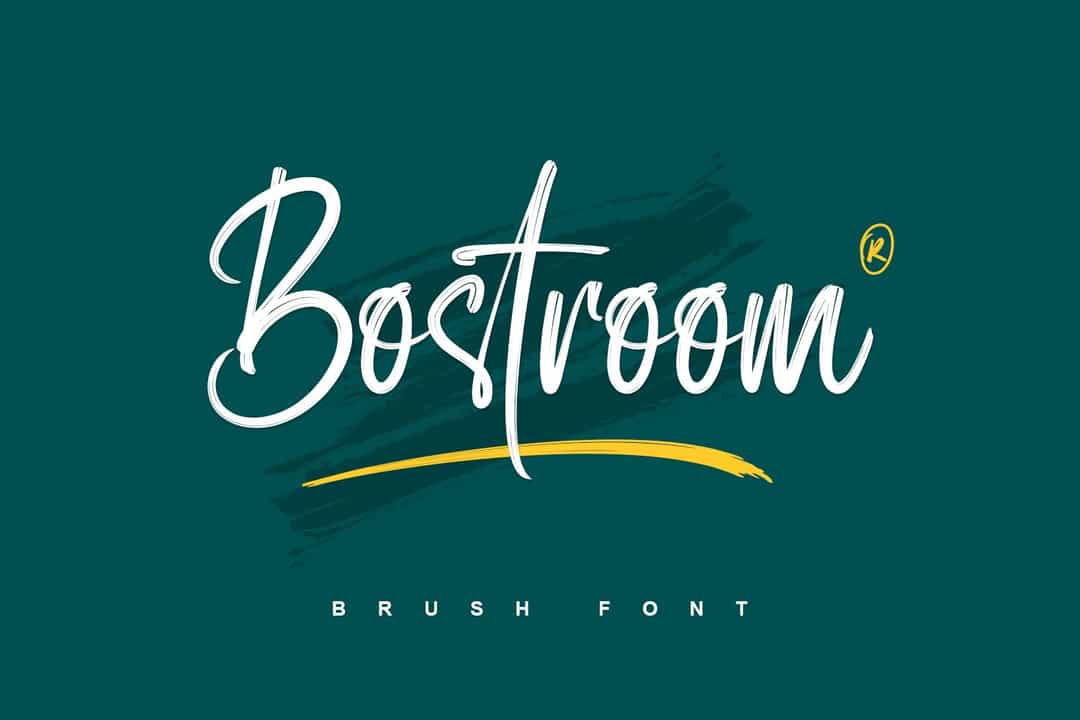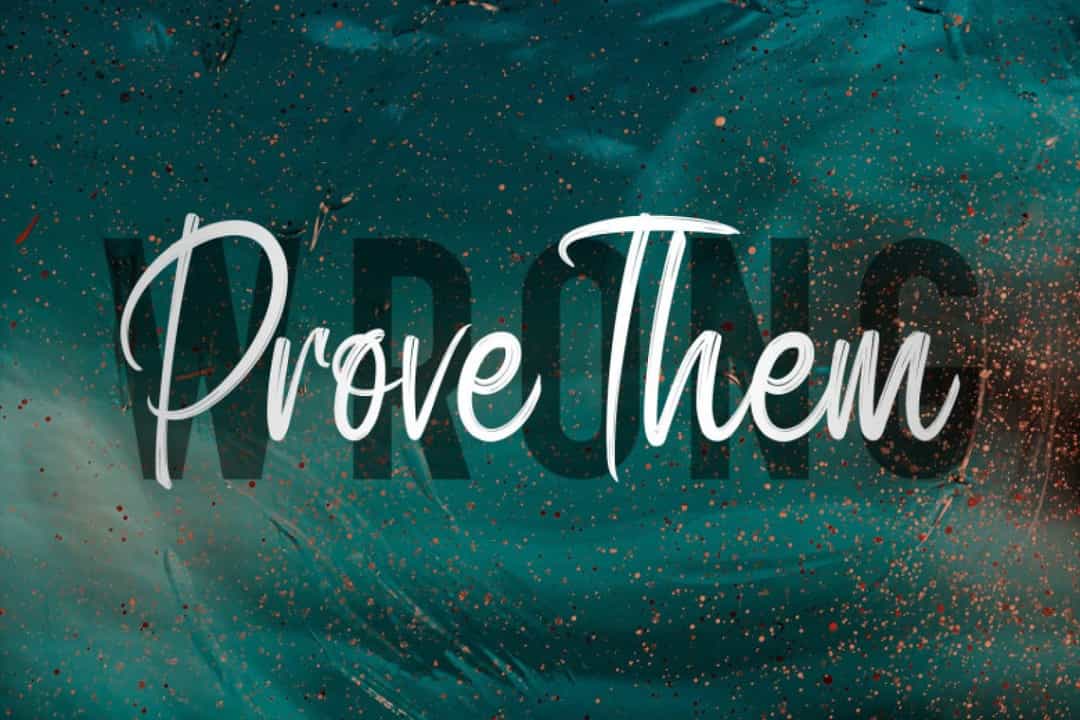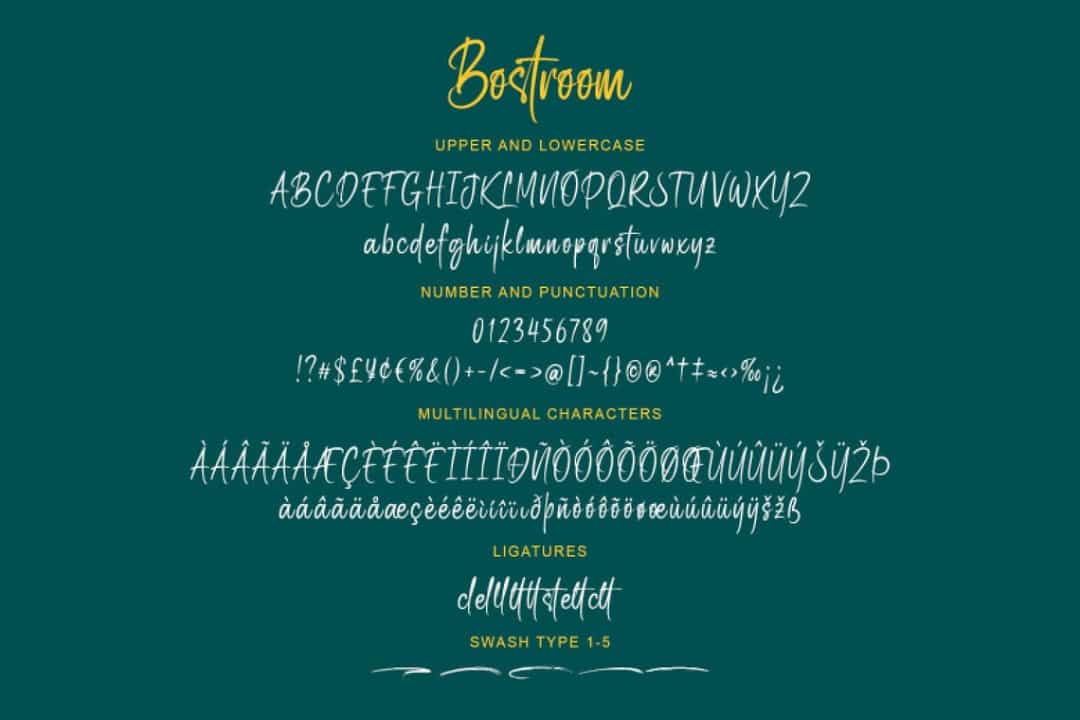
Discover Bostroom Font, part of the Brush collection—a versatile and unique font perfect for adding a personal touch to your projects. Download it for free and enjoy crafting designs with style, from invitations to social media posts. This font is available exclusively for personal use, giving you the freedom to create without limits. Unlock your creativity with Bostroom Font today!
Bostroom is an exquisite brush script font. Perfect for logos and branding projects, invitation design, stationery design and wedding designs as well as advertisements, social media posts packaging designs for products label photographs watermarks or special occasions or any other use, Bostroom can help make any project truly unique!